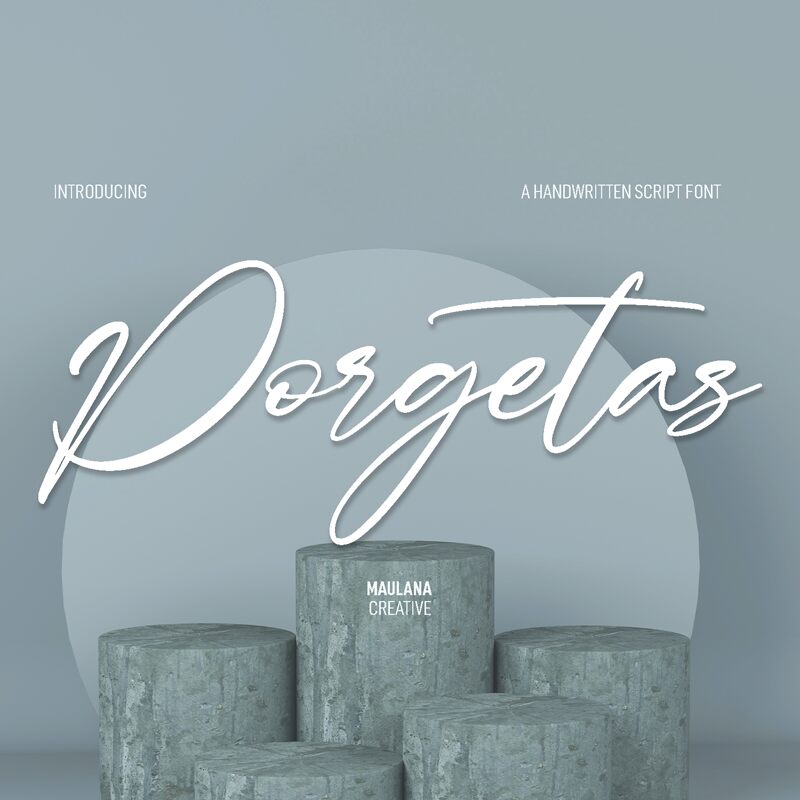
Porgetas Free Regular
Porgetas, crafted by the talented Maulana Creative, is a captivating signature font that effortlessly exudes elegance and sophistication. Its semi-light weight adds a touch of delicacy to any project, making it perfect for wedding invitations, luxury branding, and high-end fashion designs. Whether you want to create a romantic atmosphere or elevate your brand's image, Porgetas will infuse your designs with an air of refined beauty. With its graceful curves and distinctive strokes, this font will leave a lasting impression on any medium – from logos to packaging – ensuring your message stands out from the crowd.